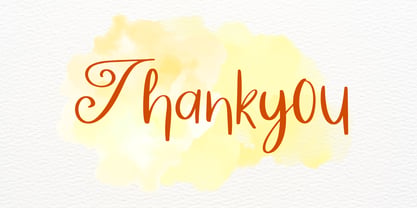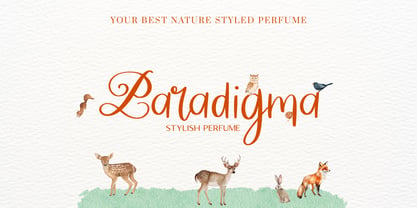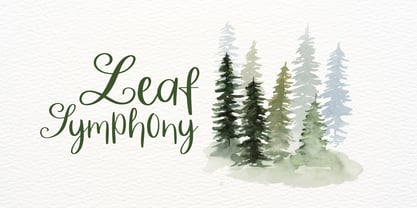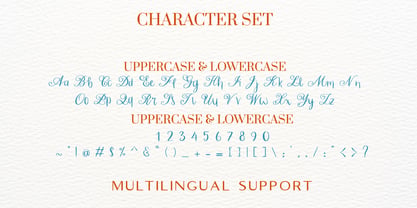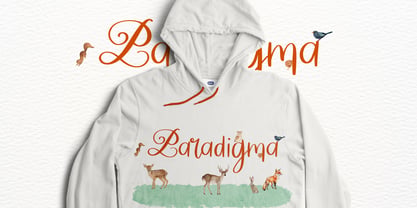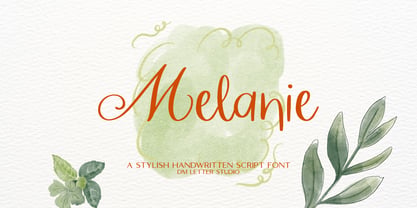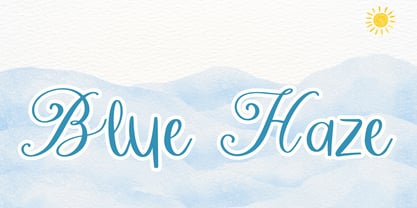
Melanique
by DM Studio
The Melanique Font Family was designed by Dimas Prasetyo and published by DM Studio. Melanique contains 1 styles. More about this family
Meet Melanique, the Script Font Melanique is a graceful script font designed to bring elegance, softness, and charm into every layout. The strokes flow smoothly with a refined handwritten feel, making each word look stylish and naturally expressive. It has a polished script character that works beautifully across feminine, romantic, and lifestyle-focused designs. Use Melanique for wedding invitations, boutique logos, beauty packaging, social media quotes, product labels, and signature branding. As a result, your typography feels elegant, personal, and effortlessly beautiful.   Why Melanique sells First, Melanique installs quickly and works smoothly in Canva, Photoshop, and Illustrator. Next, the flowing script structure gives your designs a premium look without needing much extra styling. Then your layouts come together faster because the font already creates a strong visual mood on its own. Moreover, elegant script fonts continue to perform well in wedding, beauty, and small business markets. Therefore, Melanique fits perfectly into stylish script font collections.   Fast layouts with the Melanique Font Start with names, short titles, or standout quote lines. After that, adjust the spacing slightly for a more airy and luxurious appearance. Because the script is flowing, keep the background simple so the lettering stays clear and attractive. In addition, pair it with a serif or clean sans serif for product details and supporting text. Finally, try palettes like blush and gold, black and ivory, sage and cream, or dusty rose and beige for a timeless, feminine feel.   Creative uses and quick wins Wedding invitations and save-the-date cards Boutique logos and signature branding Beauty packaging and thank you cards Instagram quotes and feminine content templates   What you get Uppercase and lowercase letters Numbers and basic punctuation   Design tips for Melanique Use Melanique for headlines, names, logos, and highlight text instead of long paragraphs. Also, keep enough spacing between lines so the flowing strokes remain readable. For print, test smaller sizes to make sure thin details stay clear. For digital use, increase the font size slightly for better visibility on mobile screens. Finally, combine it with floral elements, minimal borders, or soft textures to create a polished and romantic finish.
Designers: Dimas Prasetyo
Foundry: DM Studio